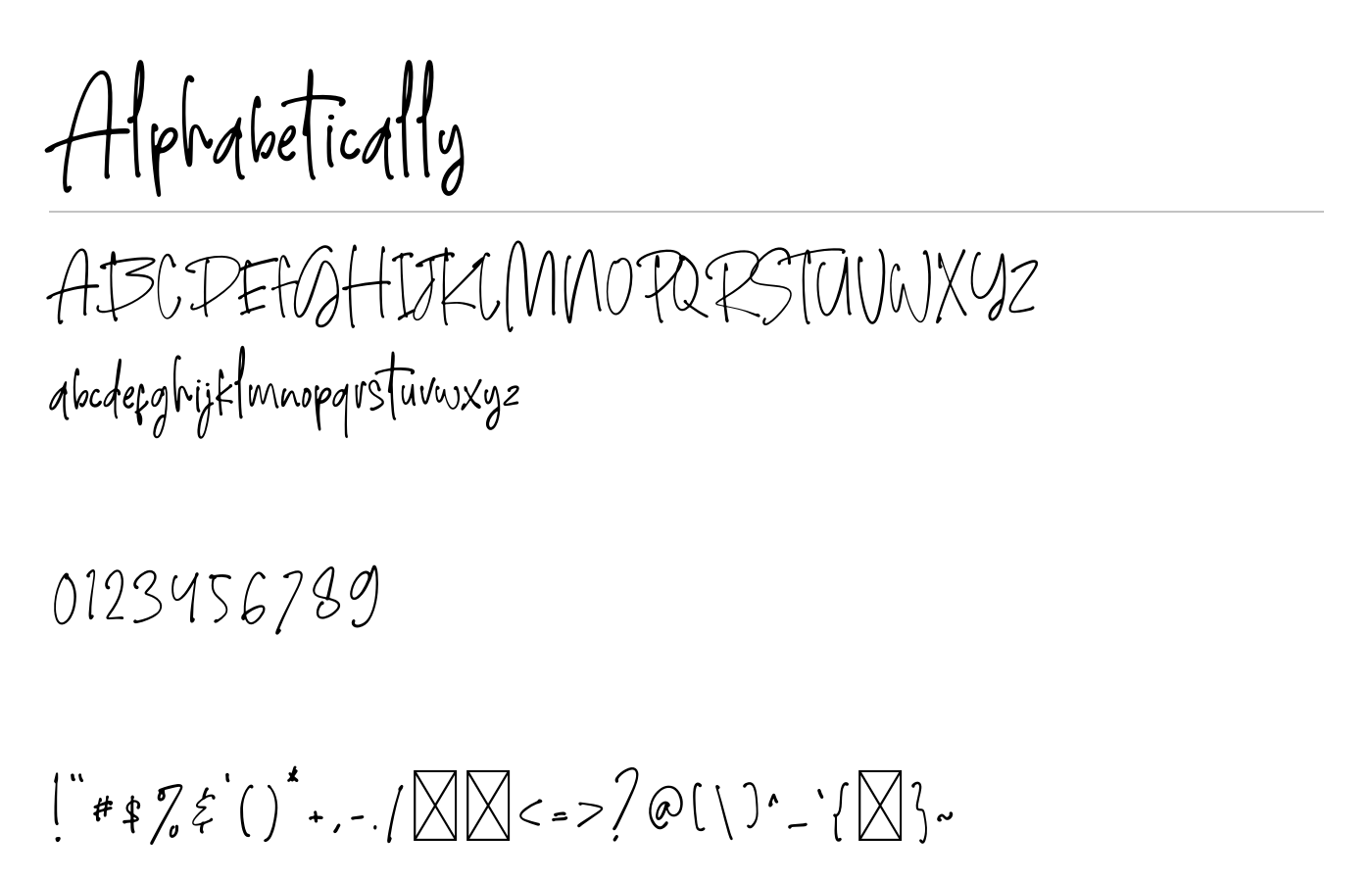
Alphabetically Font is a playful, handwritten script with a light weight and tall, narrow letterforms that give it an airy and casual feel. Its uneven strokes and quirky character shapes make it ideal for creative, informal designs, adding a personal and approachable touch to branding, invitations, and social media graphics. This font works best where a lively, friendly vibe is desired rather than formal or traditional settings.
Alphabetically Font
About Alphabetically Font